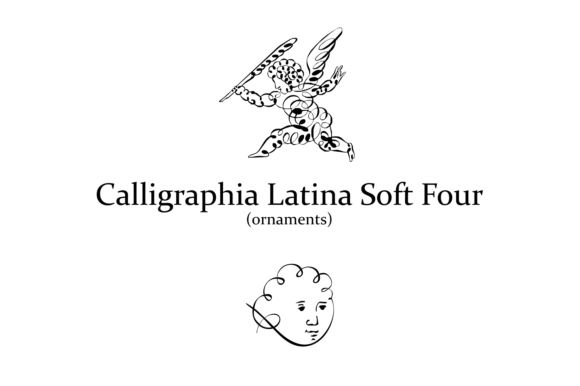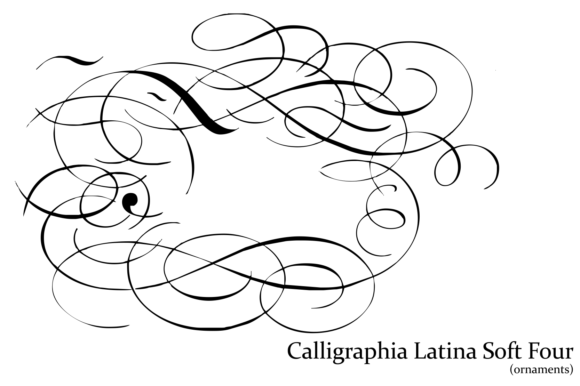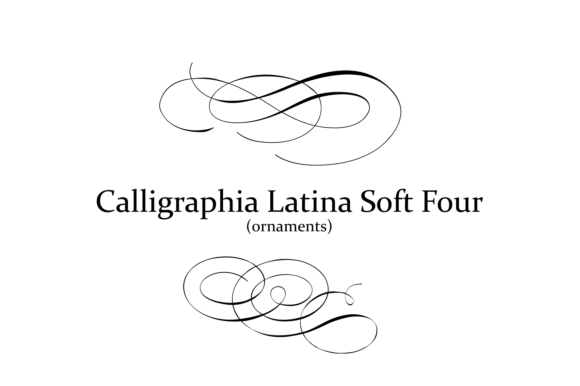
Calligraphia Latina Soft 4 Font
About Calligraphia Latina Soft 4 Font
Introducing the world-renowned Calligraphia Latina, a highly successful ornament font that has taken the design world by storm. This font is part of a trend that has gained immense popularity in recent times: messed-up calligraphy. With its unique and distinctive style, Calligraphia Latina brings a fresh and contemporary twist to traditional calligraphic forms.
Calligraphia Latina, developed by IntellectaDesign, has achieved global acclaim and has become a best-seller in the design community. It stands out for its intricate details and mesmerizing flourishes, making it a versatile choice for a wide range of artistic projects. Whether you’re working on typography, branding, packaging, editorial design, or any other form of artwork, Calligraphia Latina is sure to add a touch of elegance and sophistication.
What sets Calligraphia Latina apart is not only its original version but also its extensive family of fonts, consisting of 13 different sets. This comprehensive collection provides a complete solution for designers seeking intricately designed fleurons and ornaments to enhance their artworks. The variety of styles and elements within the family allows for endless possibilities and flexibility in creating stunning compositions.
Whether you’re looking to embellish headings, chapter initials in books and magazines, or add a touch of opulence to Baroque or Renaissance-inspired layouts, Calligraphia Latina has got you covered. It seamlessly blends the informality of script with the timeless beauty of calligraphy, making it a go-to choice for designers seeking a balance between modernity and tradition.
With Calligraphia Latina, you’ll have access to a treasure trove of intricate fleurons and ornaments that can effortlessly elevate your designs to new heights. Its versatility and popularity make it a valuable asset in any designer’s toolkit, providing endless creative possibilities and ensuring that your artworks stand out from the crowd.
Embrace the charm and allure of Calligraphia Latina and discover why it has become a worldwide sensation. Let its ornate details and unique style breathe life into your designs, capturing the essence of contemporary calligraphy with a touch of artistic flair.